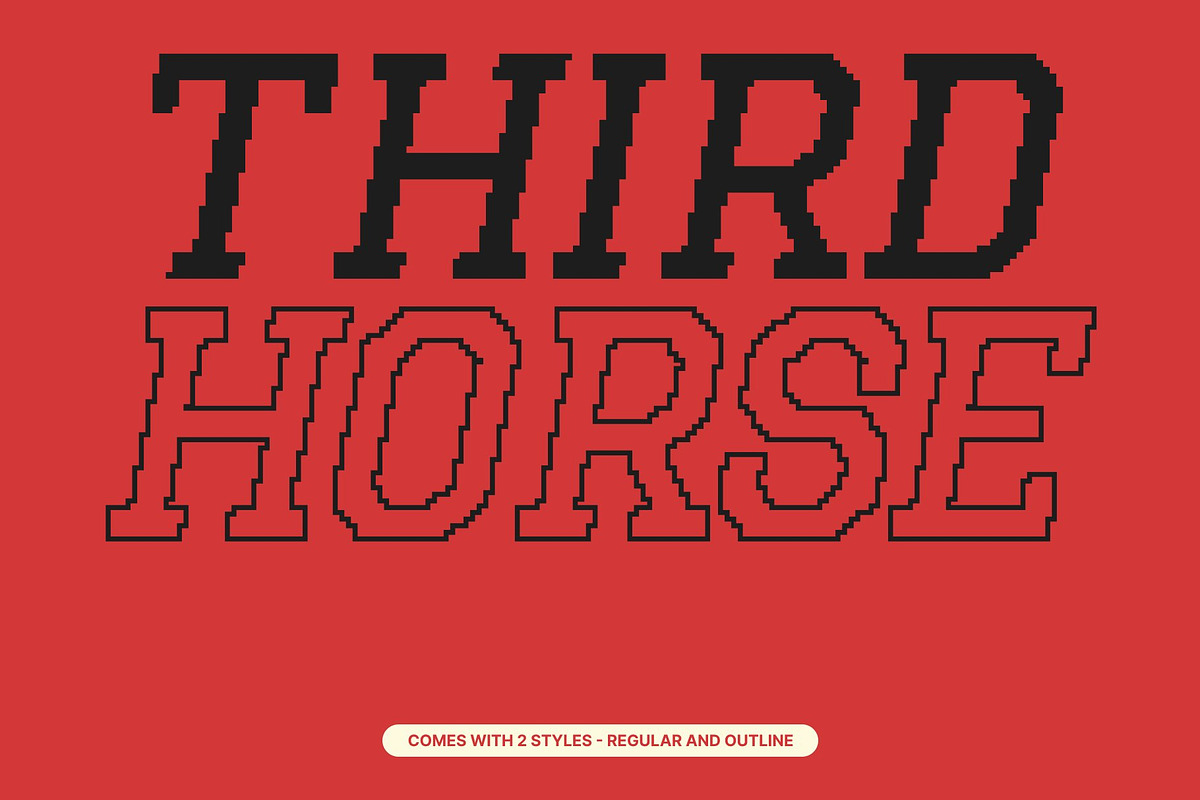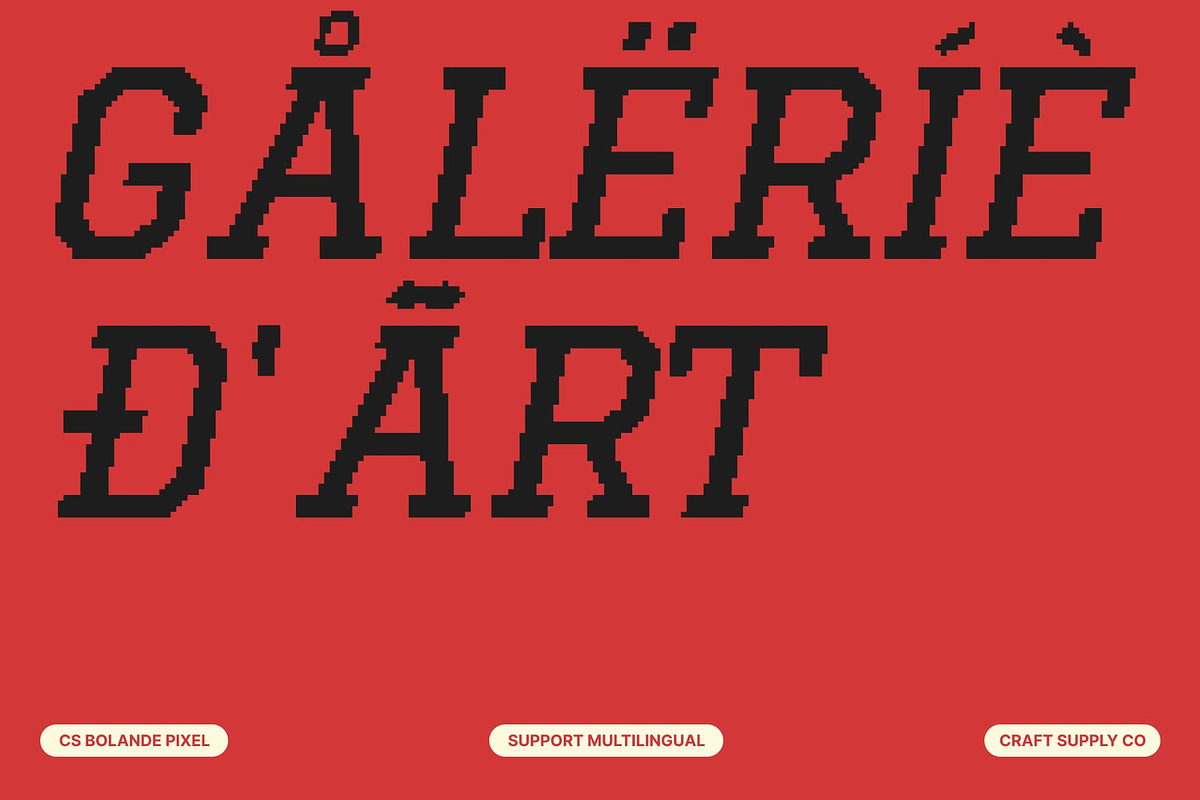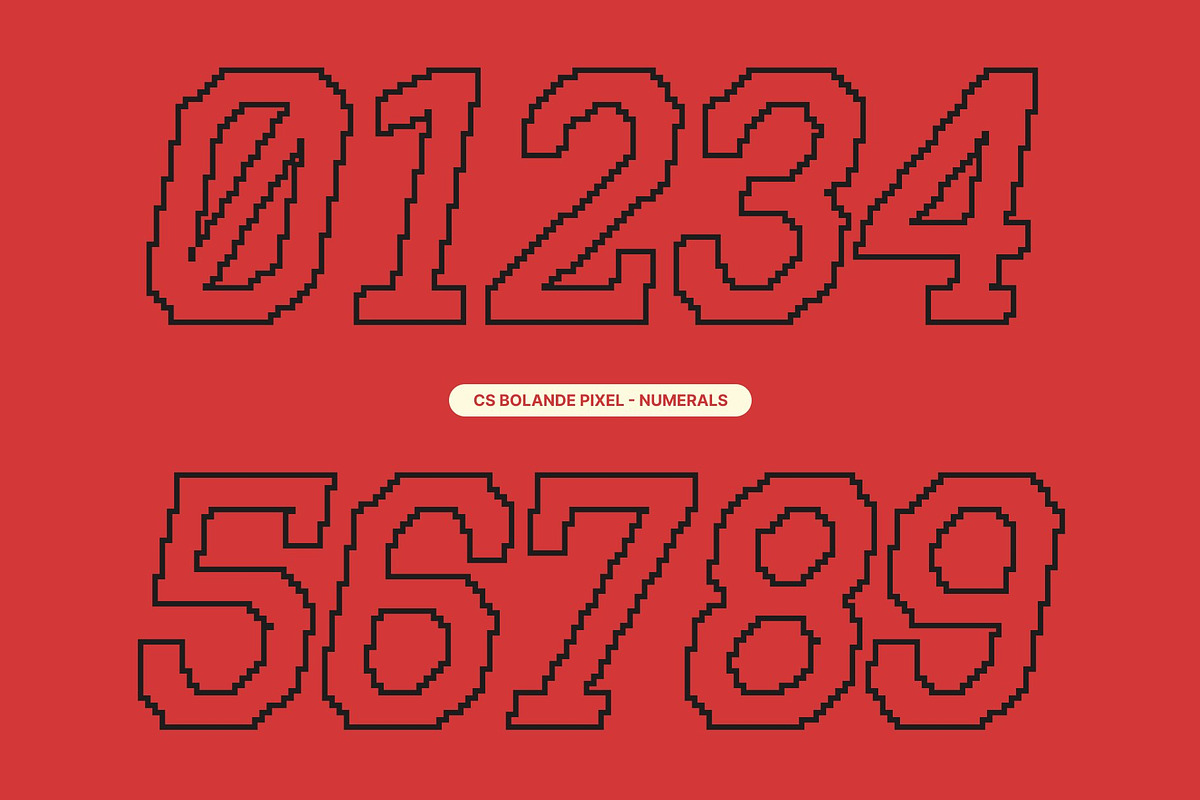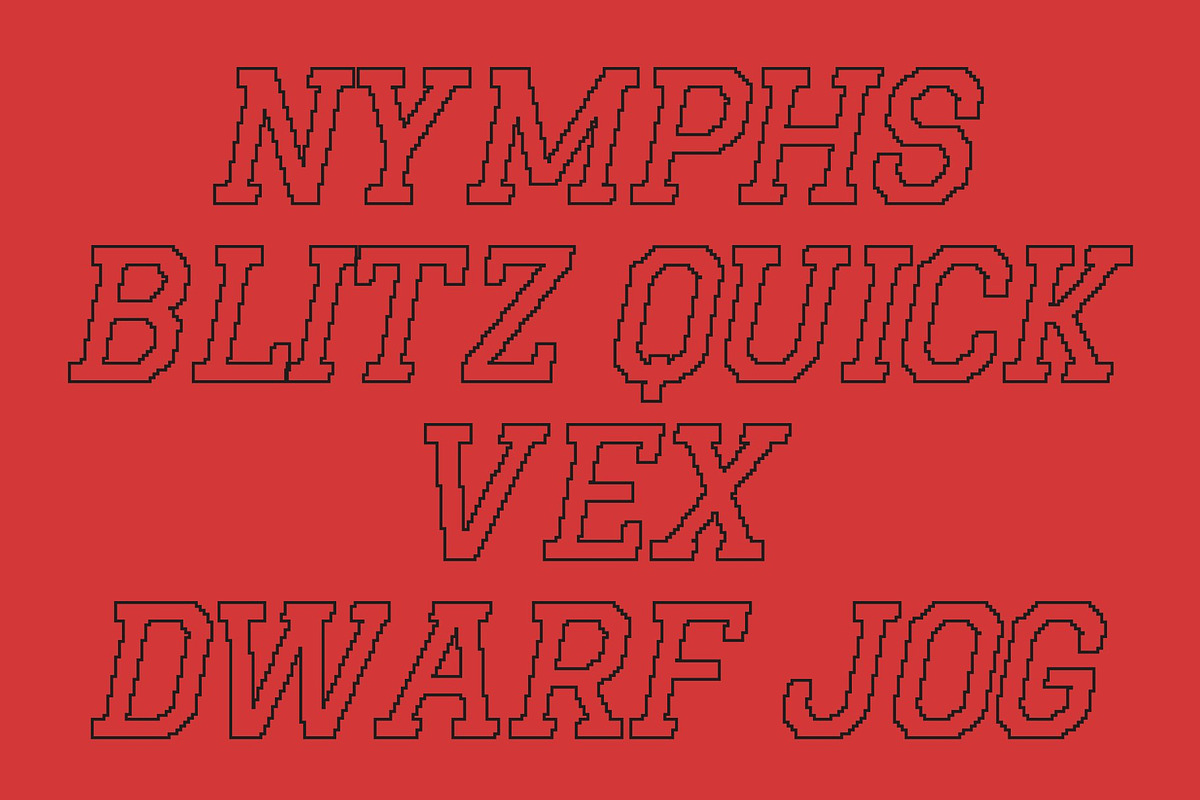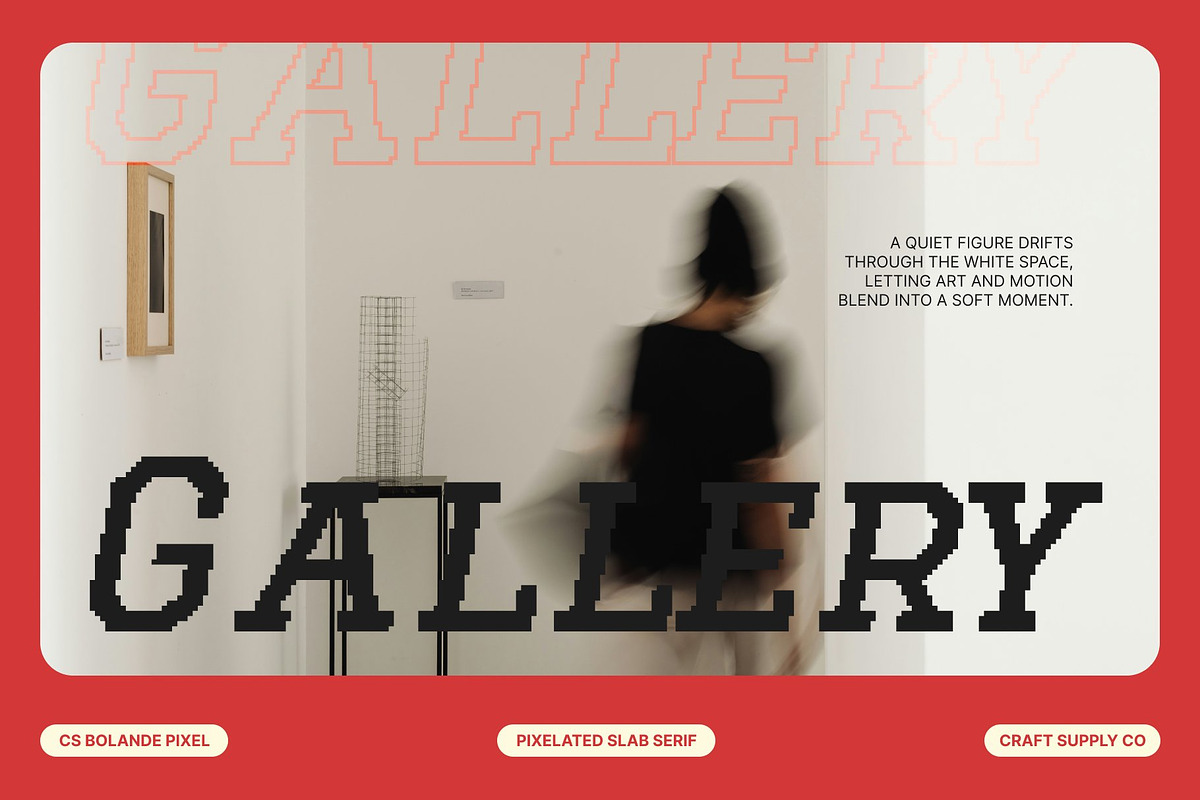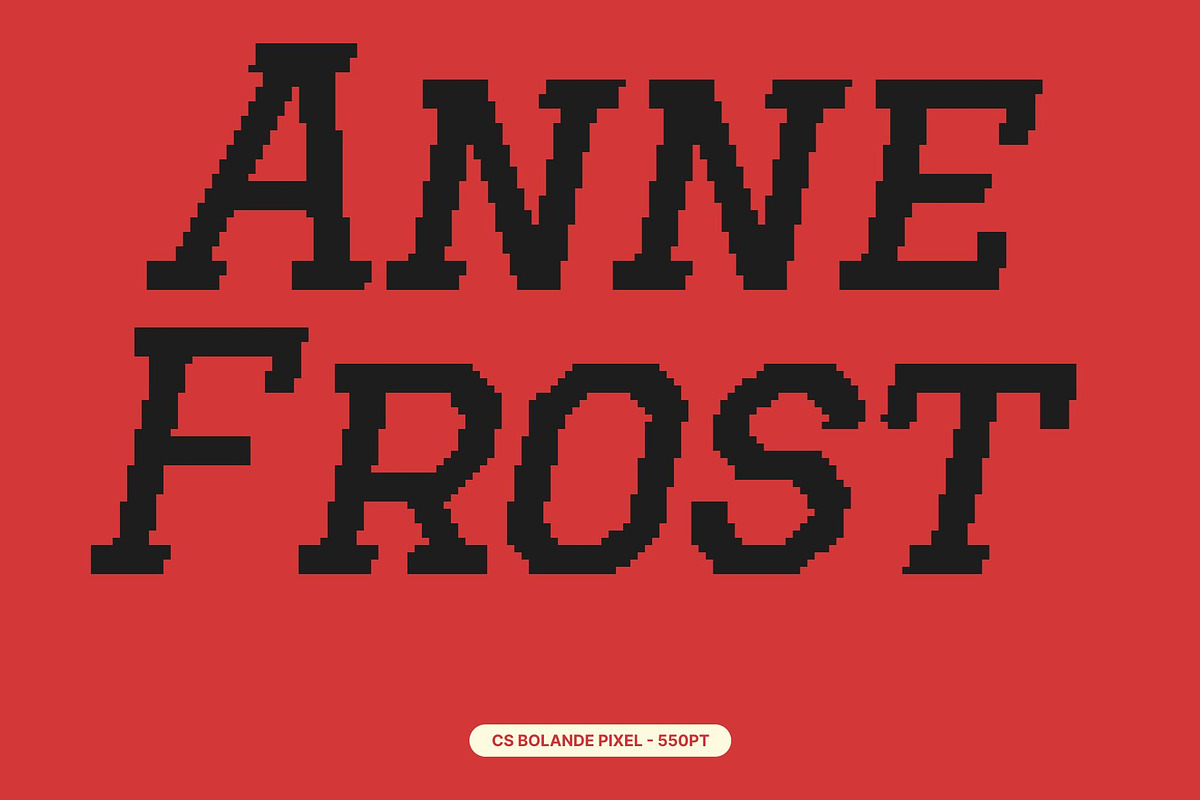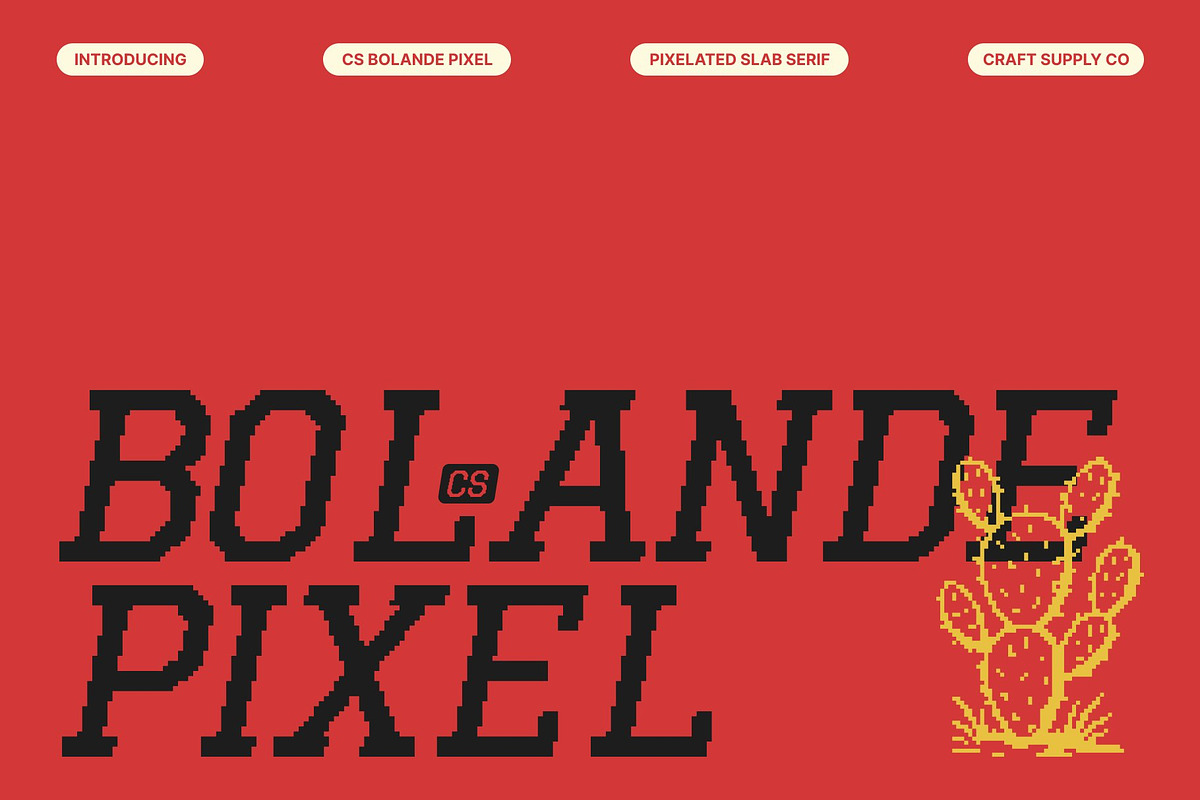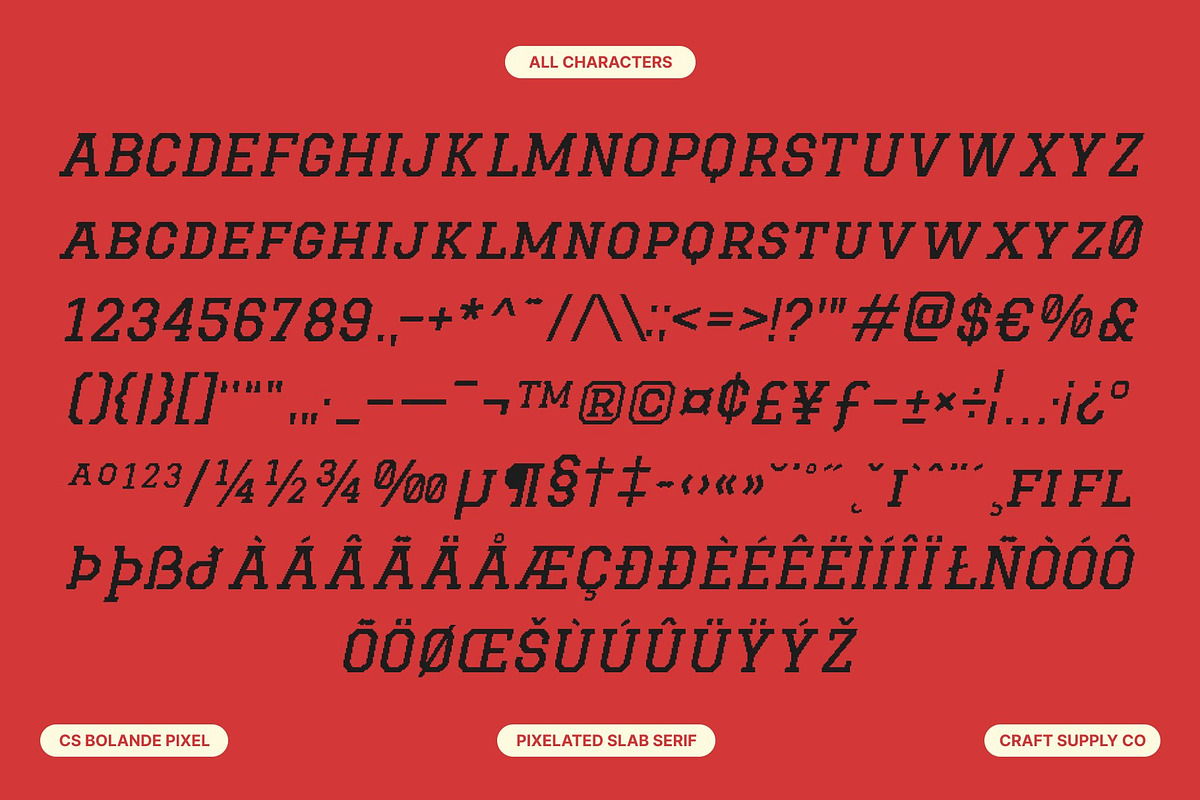
CS Bolande Pixel
CS Bolande Pixel – Sharp Slab Serif for Modern Impact
Bold Slab Serif with Pixel Precision This is a sharp slab serif typeface built from block-like structures and pixel-inspired forms. Its solid construction and crisp edges create a powerful visual presence that feels confident, modern, and digitally driven. The pixel influence adds a subtle retro-tech character, giving the font a strong identity rooted in both contemporary and classic digital aesthetics.
Geometric Structure with Clear Readability Designed with precise geometry and firm slab serifs, this font delivers excellent readability even at large sizes. Each character is carefully balanced, ensuring clarity and consistency across headlines, posters, and branding materials. The sharp proportions and pixel structure help maintain visual strength while keeping the text clean and highly legible.
Modern Impact for Bold Visual Projects This font is perfectly suited for posters, logos, advertising, and modern graphic layouts that demand attention. Its sharp, blocky appearance creates instant impact, while the pixel style adds a distinctive edge that works beautifully in digital designs, tech-themed visuals, and retro-inspired concepts.
Versatile Style with Digital and Retro Appeal Blending slab serif reliability with pixel aesthetics, this font bridges modern design and old-school digital charm. It works seamlessly across print and screen, making it ideal for branding, editorials, games, and digital platforms. This font delivers confidence, structure, and timeless impact with a bold pixel twist.
- CS Bolande Pixel Regular
- CS Bolande Pixel Outline